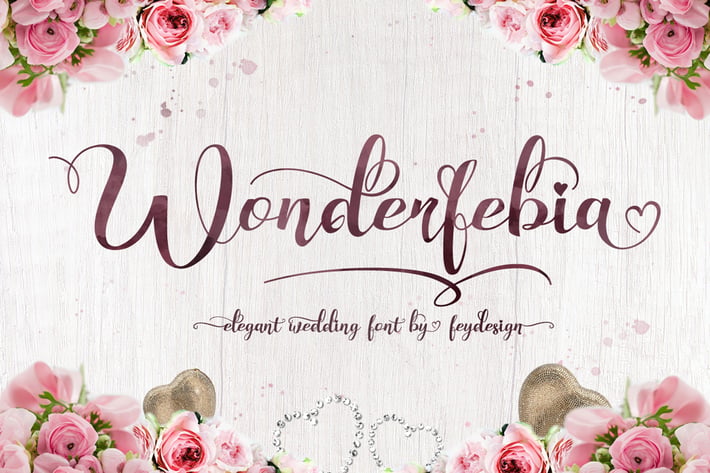
Wonderfebia - Script Wedding Font
Wonderfebia is Script Wedding Font with modern calligraphy style so much opentype feature include of the font. Suitable for design, element design, wedding, event, t-shirt, logo, badges, sticker, and awesome work, etc...
Feauture Of The Font:
- Wonderfebia OTF And TTF, There are Uppercase, Lowercase, Number And Punctuation, Multilanguage, Standard Ligature, Stylistic Set(SS) 001 - Stylistic Set(SS) 008, Swashes, And PUA Encode easy for Open Type Use.
- Wonderfebia Swashes OTF And TTF, Swashes Include for decoratife of Wonderfebia Script Wedding Font, easy play for custom swashes for beatiful modern calligraphy style.
- Wonderfebia Web Font, There are Uppercase, Lowercase, Number And Punctuation, Multilanguage, Standard Ligature, Stylistic Set(SS) 001 - Stylistic Set(SS) 008, Swashes, And PUA Encode easy for Open Type Use.
- Open Type Features Fonts
- PUA Encode
- Unique style fonts
- Easy customize